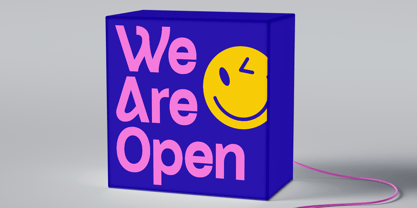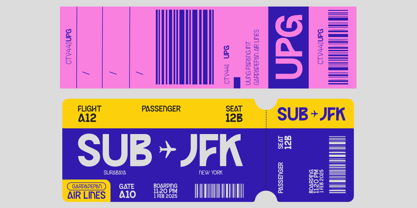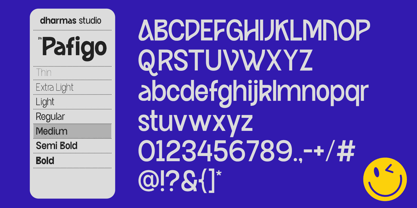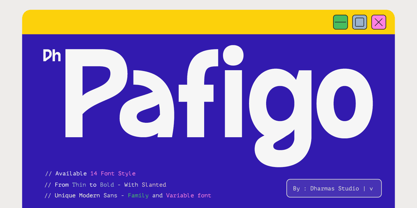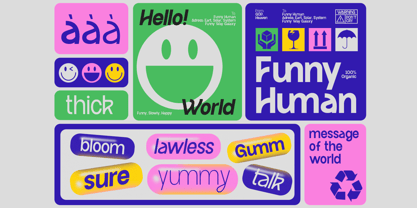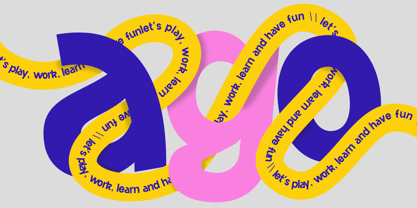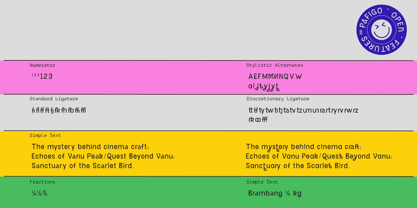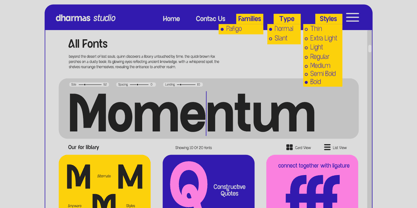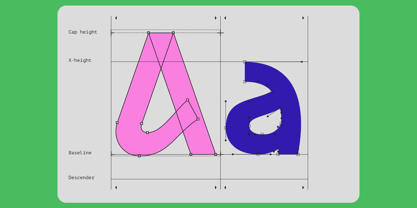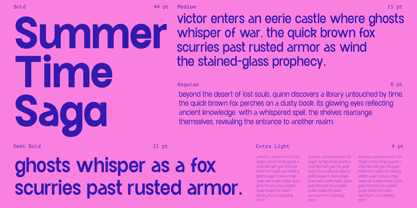
Dh Pafigo
Dh Pafigo – A Friendly Sans Typeface for Modern Brands
Dh Pafigo is a modern sans serif typeface with a clean, rounded design that blends geometric structure with a friendly tone. Designed for bold branding, digital content, packaging, and editorial use, its 14 styles and 48+ alternates give designers creative control. Dh Pafigo stands out for its balance between clarity and charm—perfect for confident, expressive brands.
Built for brands that want to feel bold yet approachable, Dh Pafigo is ideal for lifestyle, tech, and editorial design. With multilingual support, Canva compatibility, and OpenType features, it’s a go-to font for global creatives who value both style and substance.
Font Features:
• 14 Styles (7 Weights + Slant): Thin to Bold for versatile use
• 48+ Alternates & Ligatures: Creative flexibility
• OpenType Features: Advanced typographic control
• Multilingual Support: Wide language coverage
Multilingual Characters:
Afrikaans, Albanian, Asu, Basque, Bemba, Bena, Breton, Chiga, Cornish, Dutch, English, Estonian, Filipino, Finnish, Friulian, Galician, German, Gusii, Indonesian, Irish, Italian, Kabuverdianu, Kalenjin, Kinyarwanda, Luo, Luxembourgish, Luyia, Machame, Makhuwa-Meetto, Makonde, Malagasy, Manx, Morisyen, North Ndebele, Nyankole, Oromo, Portuguese, Quechua, Romansh, Rombo, Rundi, Rwa, Samburu, Sango, Sangu, Scottish Gaelic, Sena, Shambala, Shona, Soga, Somali, Spanish, Swahili, Swedish, Swiss.